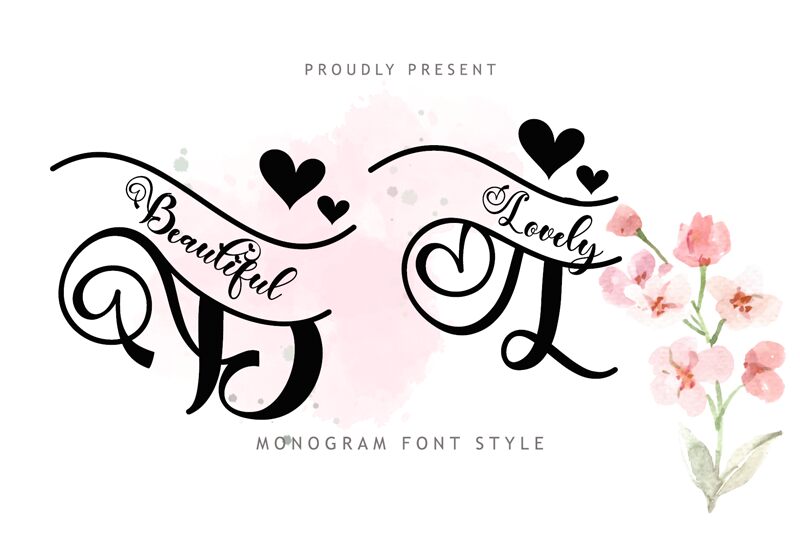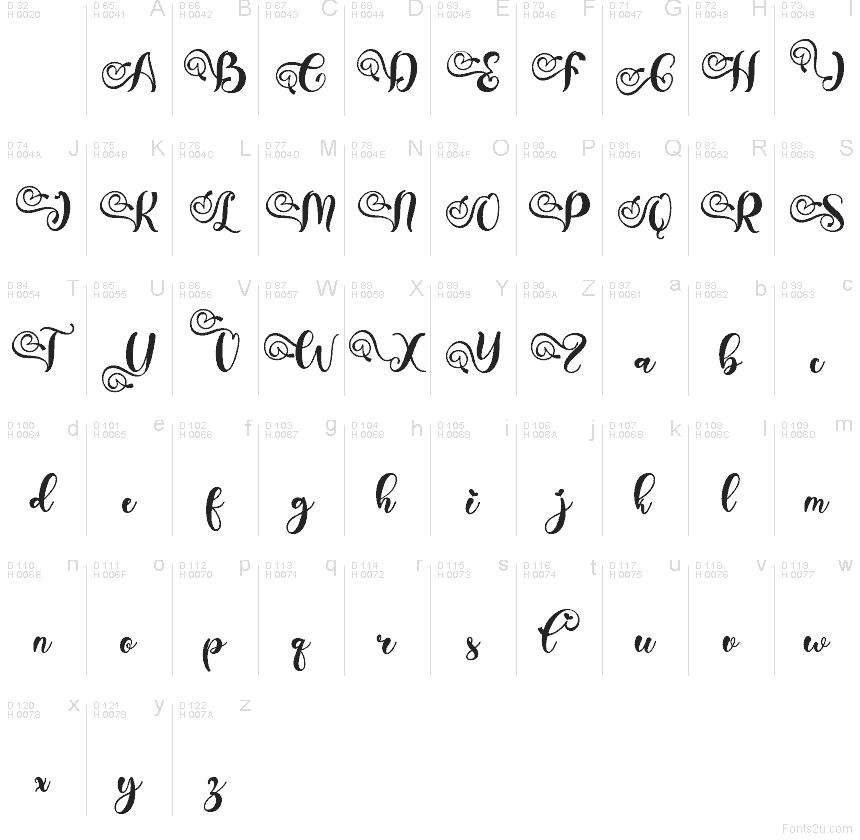
Beautiful Lovely Style Demo
Beautiful Lovely Style font by Yoga Letter is a free Valentine calligraphy typeface in the Beautiful Lovely family that turns every word into a romantic flourish. Flowing strokes, inky textures, and heart‑like curls give it the feel of hand-lettered notes tucked into a bouquet. The letters connect with an easy rhythm, so even short phrases look like complete, polished artworks without extra effort.
Using Beautiful Lovely Style, love-themed projects instantly feel more personal and heartfelt. This free font shines on wedding invitations, Valentine’s cards, anniversary stationery, love quote posters, boutique logos, and sweet product packaging like candles or chocolates. It also works beautifully on social media graphics and printable gift tags. For balance, pair its ornate script with a clean sans serif for small details or body text, letting Beautiful Lovely Style handle the names and key phrases.